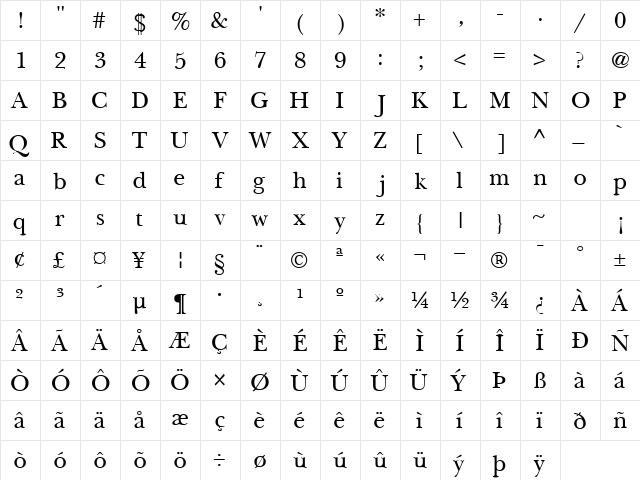
BaskervilleSSK Regular
Design Context for BaskervilleSSK Typeface
BaskervilleSSK offers clean, dependable letterforms without strong stylistic allegiance, making it a practical choice for designers who need flexibility.
Pro Tip: Use BaskervilleSSK in both headline and body roles to test its range before committing to a single application.